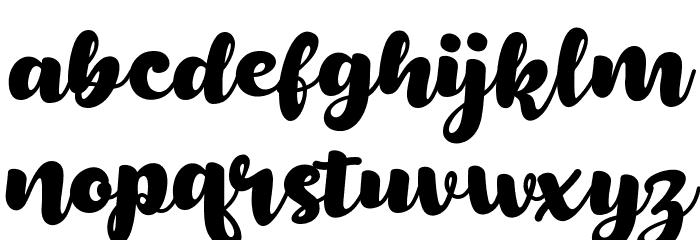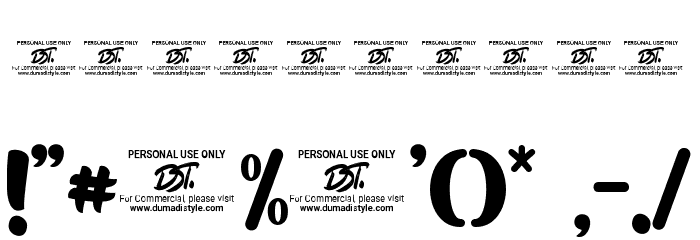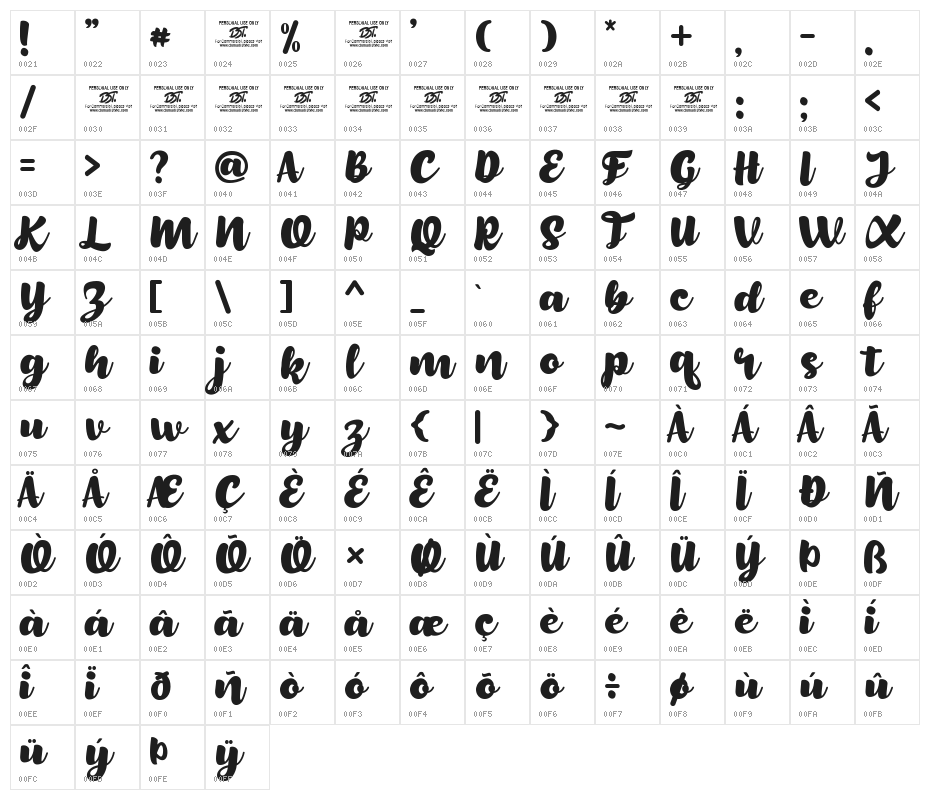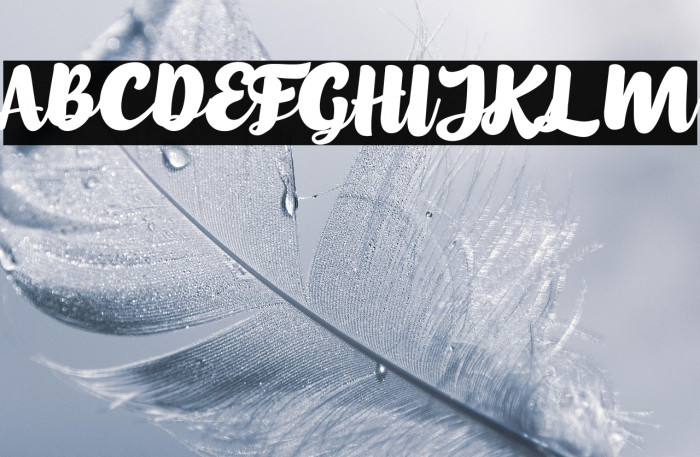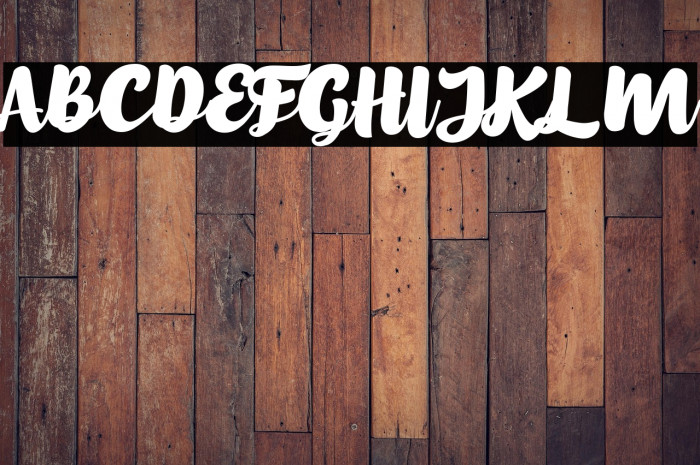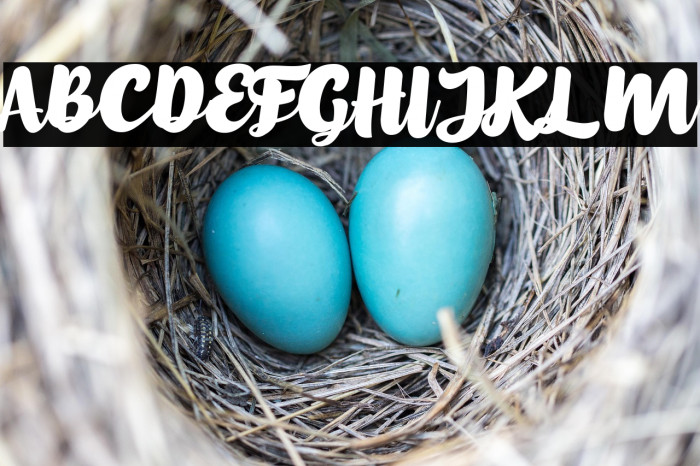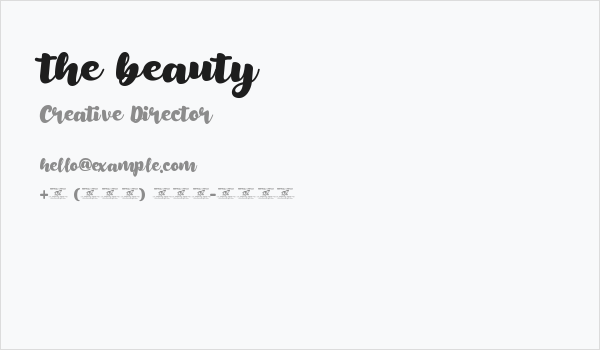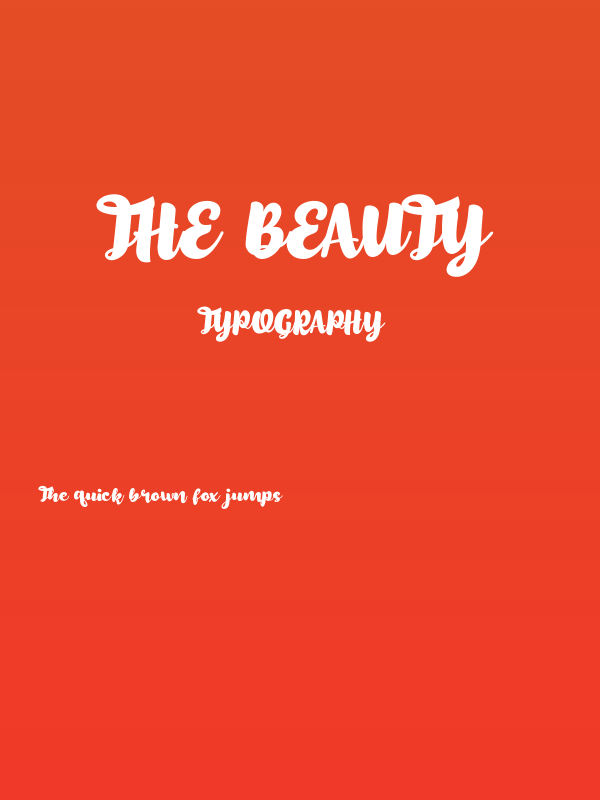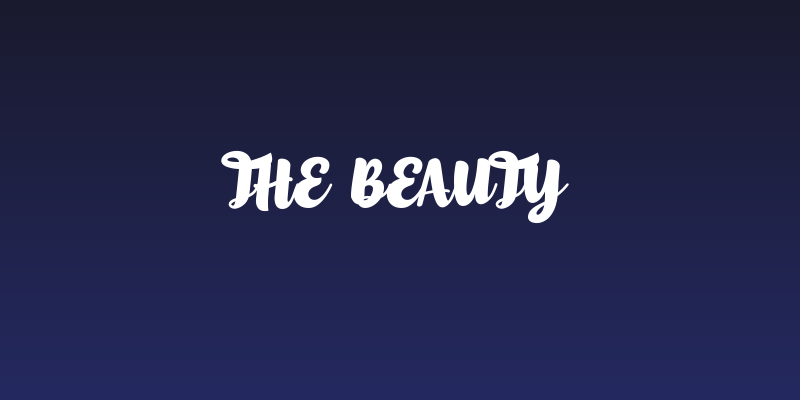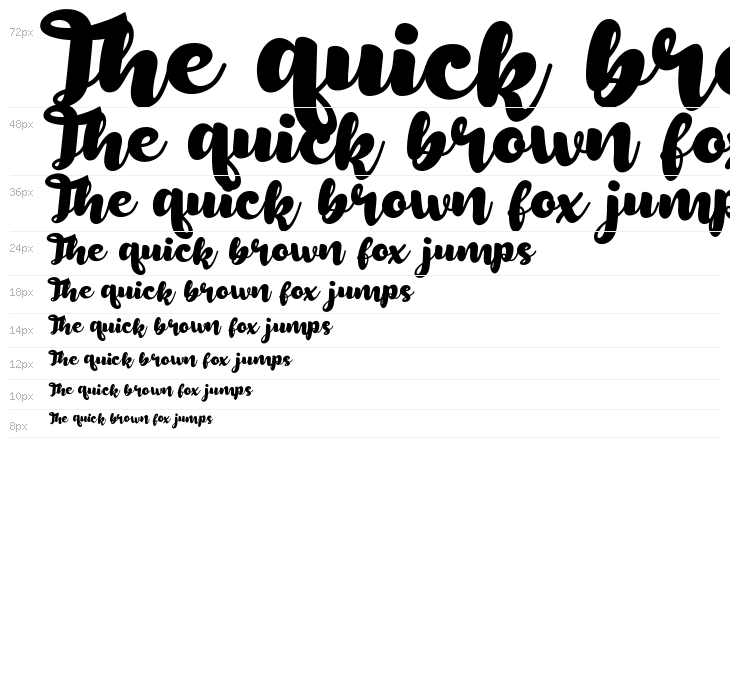
the beauty Font
This font features a bold, flowing script style with a handwritten appearance. The characters are connected, creating a seamless and elegant look. The uppercase letters are slightly larger and more pronounced, while the lowercase letters maintain a consistent flow. The font includes a full set of uppercase and lowercase letters, numbers, and a variety of special characters. The strokes are thick and consistent, giving the font a strong presence. This style is reminiscent of modern calligraphy, making it suitable for decorative purposes.
A bold, flowing script font with a modern calligraphic style.
- Font: the beauty
- Proposed Projects: Ideal for wedding invitations, greeting cards, branding, and logo design.
- Category: Script
- Character Spacing: Tight
- Use Case: Logos, Headlines, Decorative text